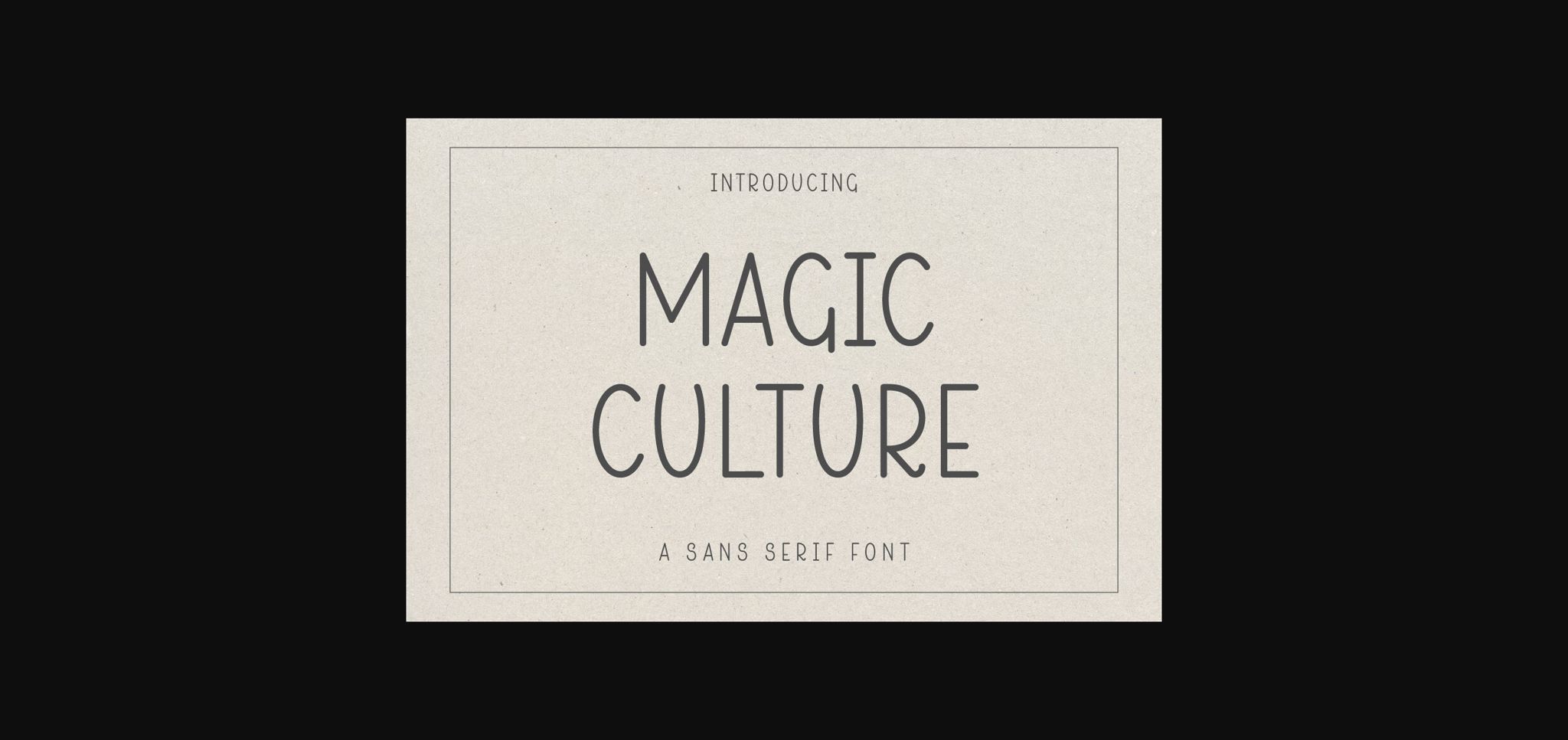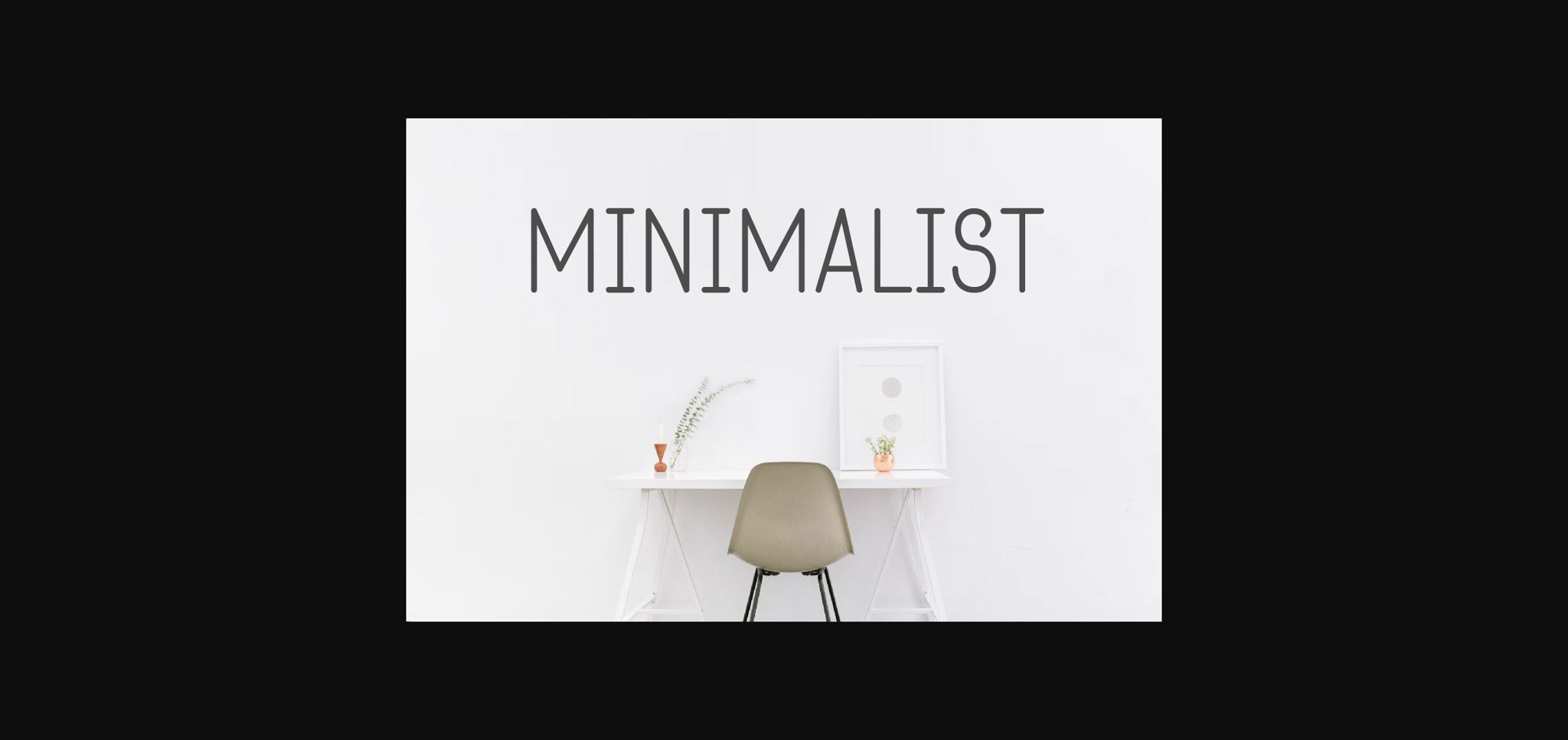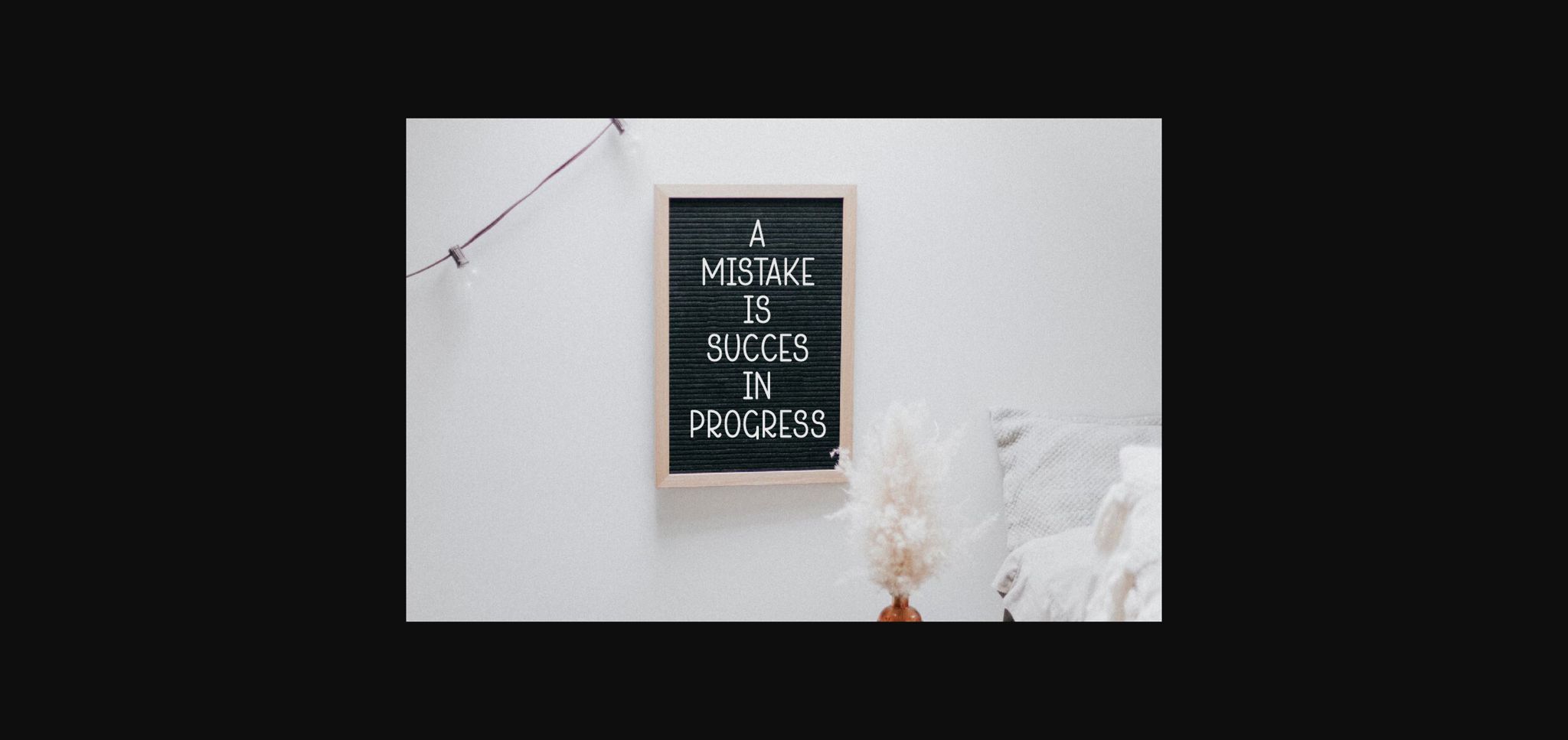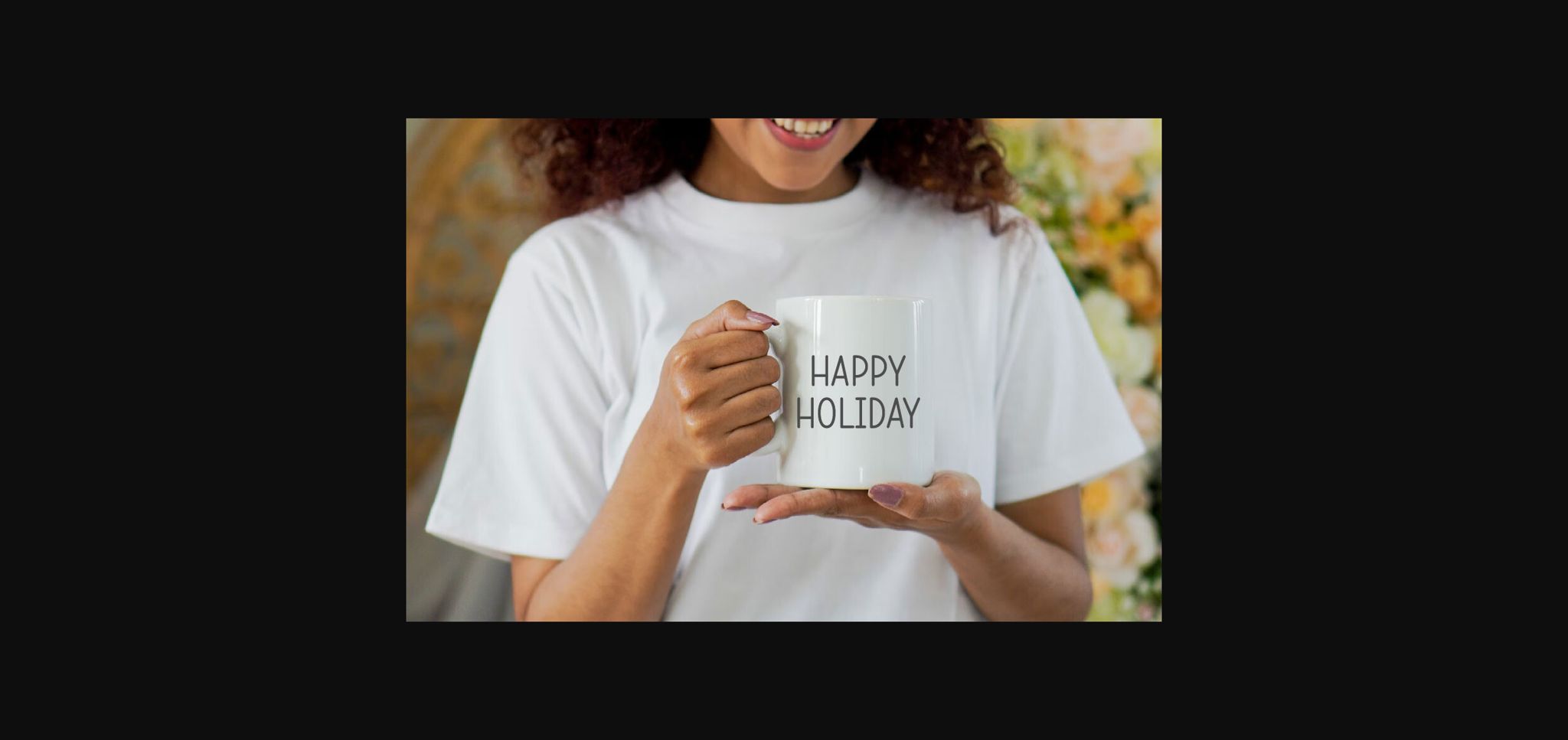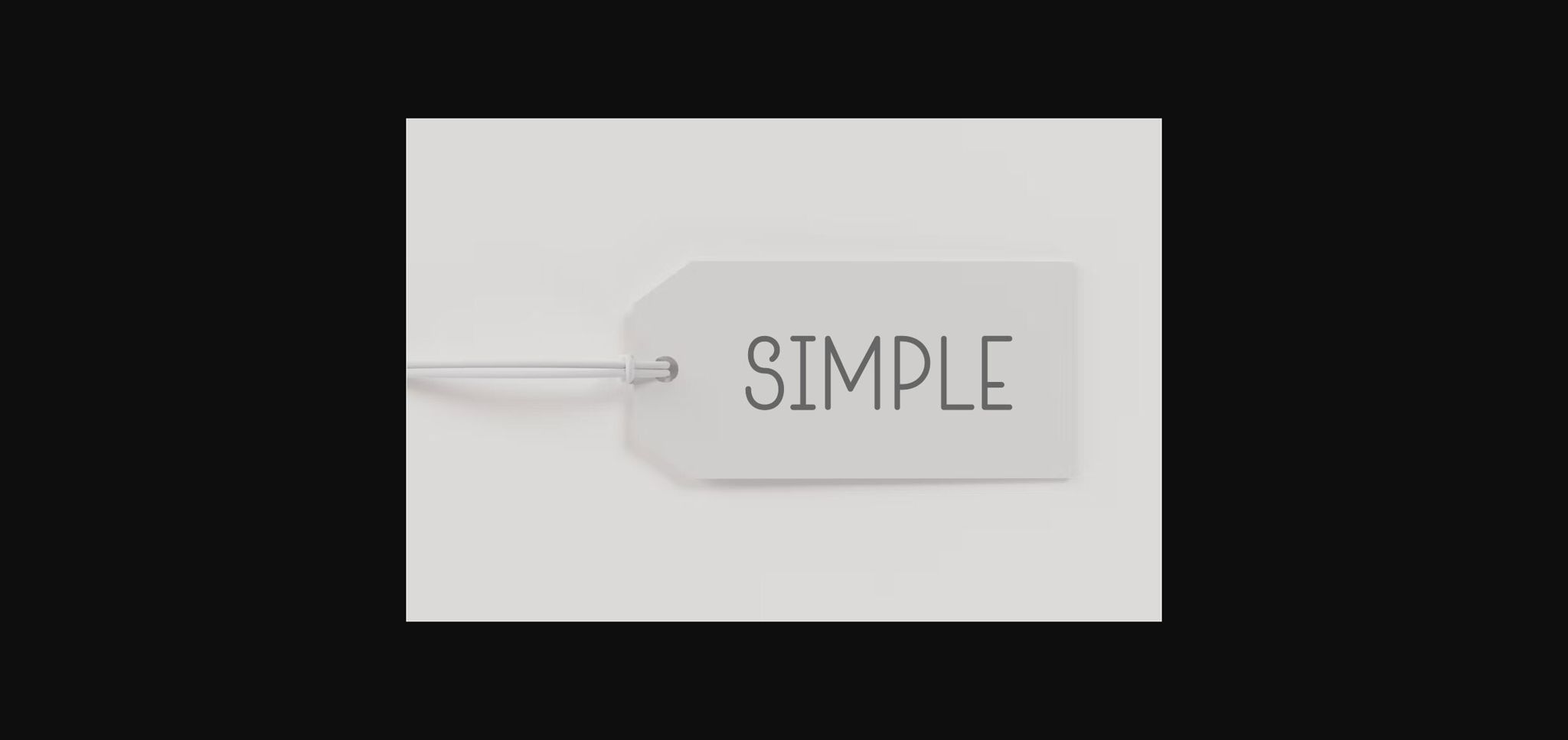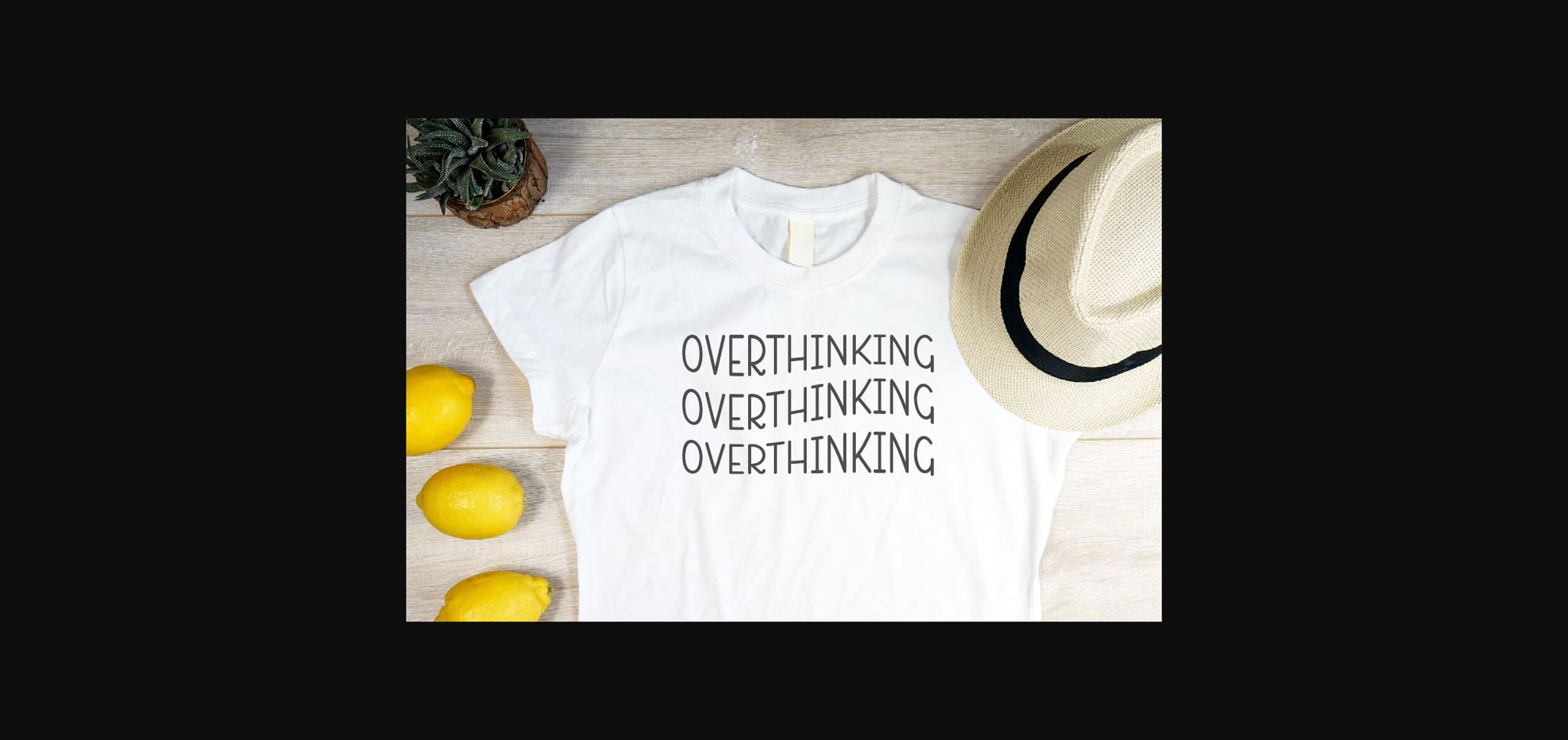
Magic Culture Font
About Magic Culture Font
Magic Culture is a simple and smooth sans serif font. Beautiful and cute, this font is perfect for craft design, wedding invitations, cards, blogs, poster, quotes, branding or any other design that might need aesthetic and personal touch!